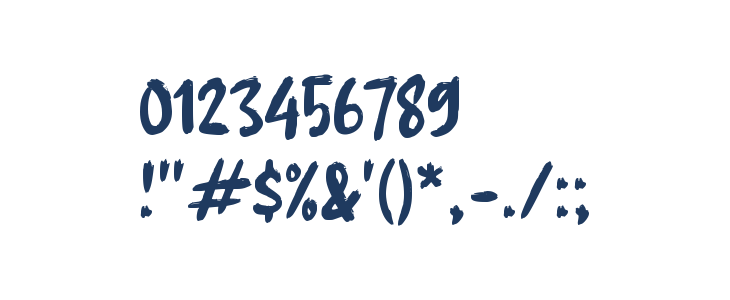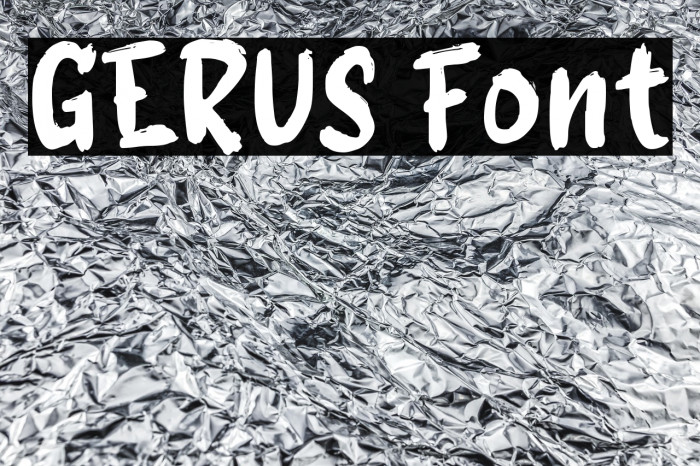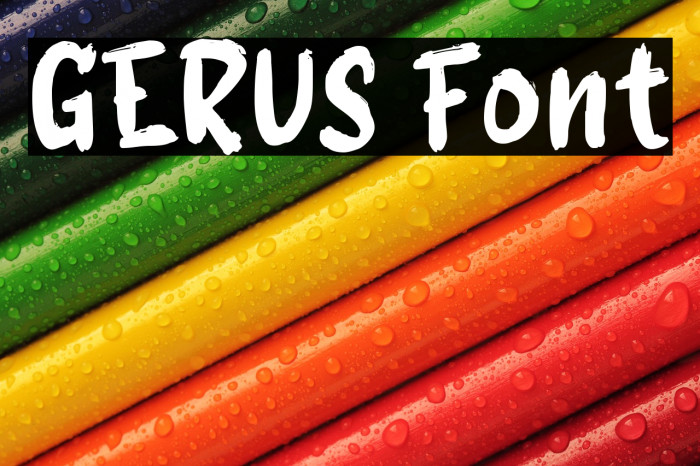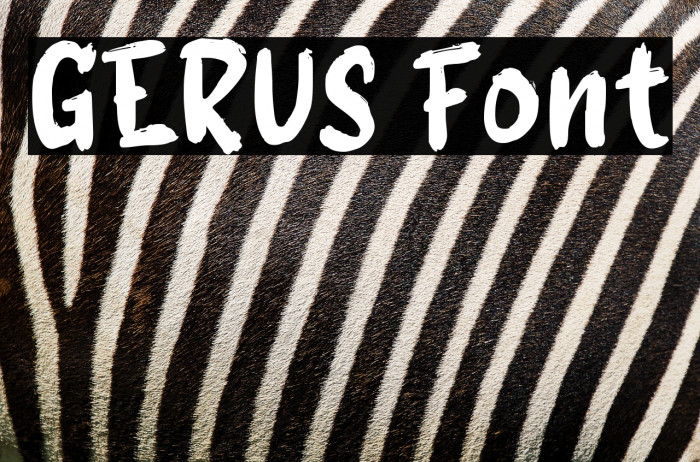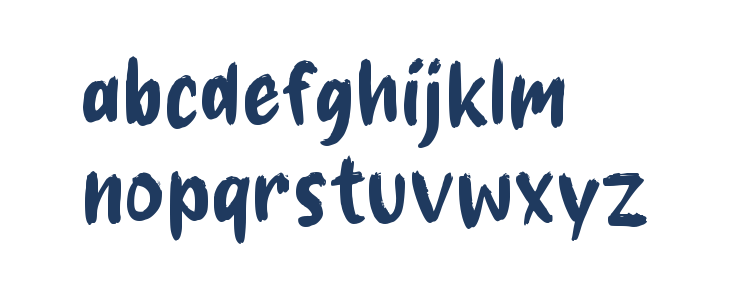
GERUS Font
GERUS Description
This font features a bold, expressive style with a hand-painted appearance. The characters are crafted with a brush-like texture, giving them a dynamic and energetic feel. The strokes are uneven and organic, adding a sense of movement and personality. The uppercase and lowercase letters maintain a consistent style, with rounded edges and varying stroke widths. Numbers and special characters follow the same artistic approach, ensuring a cohesive look across all elements. This font is ideal for projects that require a bold and artistic touch.
| Proposed Projects | Ideal for posters, branding, packaging, and artistic projects that require a bold, creative touch. |